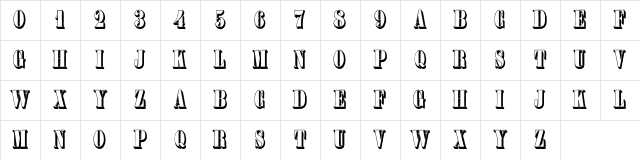
Plastische Plakat-Antiqua Regular
Designer: Dieter Steffmann
Design Context for Plastische Plakat-Antiqua
Plastische Plakat-Antiqua is a composed and adaptable typeface that performs quietly and consistently across a wide range of design contexts.